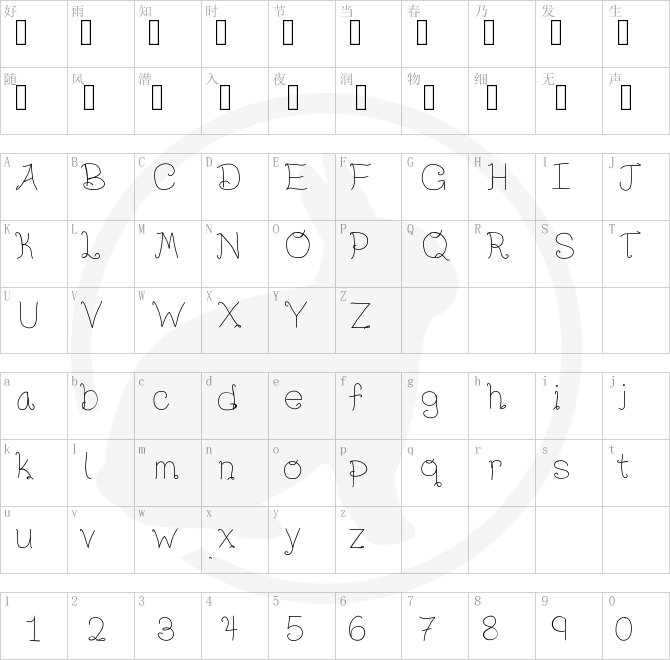
- Font Name:Radium
Radium.ttf is a very beautiful artistic font, Radium.ttf is widely used in the design and printing of various books and pictures,Radium.ttf has a strong visual impact,Radium.ttf is a commonly used font in newspapers, magazines and books, and is used in posters, e-commerce Poster design, store design, logo design, font design and other fields.Radium.